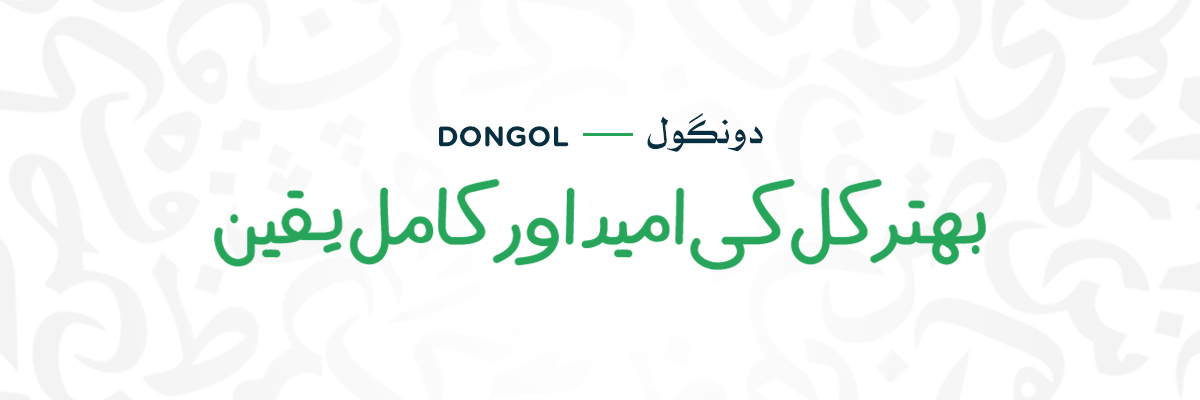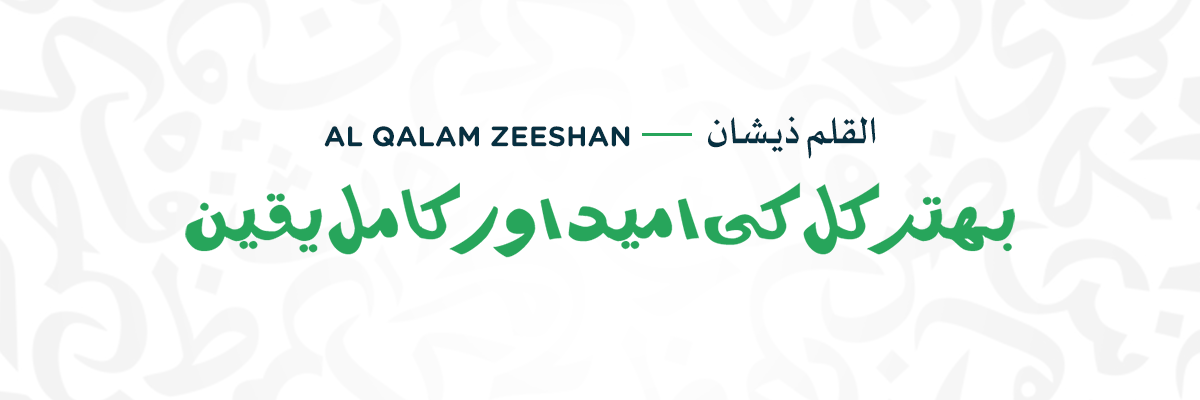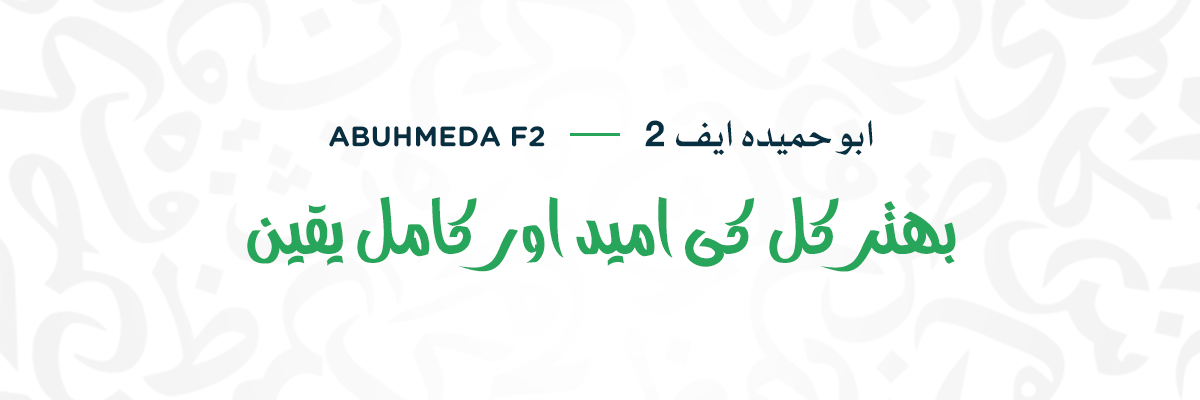
With the rise in technology and innovation day by day, people prefer to make engaging videos to convey the message to their target audience rather than just writing it in their blog posts or articles. There are many types of videos like educational, tech, animated, informational, and the list goes on. To attract the attention of viewers to keep watching the video, you need to consider few things while creating them. First, obviously the visuals matter the most. However, another thing that engage the viewers with your videos is the Urdu Fonts you will use to convey your message. Remember, choose those Urdu fonts for videos that goes best with the overall tone and vibe of your content. Below, we will discuss some of the best Urdu Fonts that you can for writing titles or captions according to your video category. Also, you can learn more about how you can leverage Urdu Fonts in Mainstream Culture.
Everybody wants their videos to get viral, right? However, to captivate more people to watch your video, selection of Urdu fonts for titles as well as captions plays a significant role. Mostly, bold Urdu fonts taken from different categories are used to write titles. While, for captions, thin as well as modern Urdu fonts are the ideal selection. Have a look into these Urdu fonts given below to get a better insight:
| Sr. | Name | Purpose | Font Appearance |
|---|---|---|---|
| 1 | ae Sharjah | For tech related videos | Geometric, monospaced, wide letterforms |
| 2 | All Genders v4 | Headings and titles | Slanted corners, continuous thickness, solid strokes |
| 3 | Adwa Assalaf | Educational or tutorials | Slanted edges, rounded corners, Qalam writing effect |
| 4 | Al Jareeda Title | Informational videos | Wide appearance, thin sharp edges, continuous thickness, solid strokes |
| 5 | A Soraya | Short texts | Slanted edges, changing thickness, solid strokes |
| 6 | Aisha Arabic | Creative videos | Versatile, four different weights, changing thickness |
| 7 | Ad Rsail | Facts based videos | Wide letterforms, solid baseline, compatibility across languages |
| 8 | Dongol | Entertainment or kids-related videos | Decorative handwritten, lightweight and uneven letters |
| 9 | Al Qalam Zeeshan | Short texts | Freestyle handwritten, filled and bold characters, changing and thick strokes |
| 10 | Abuhmeda f2 | Cartoon-style font for children | Filled and curved letters, fun-type appearance |
| 11 | Abdo Misr | Entertainment videos | Wide and bold letterforms, even letter spacing, clear horizontal emphasis |
| 12 | Sarem Hisbullah | Fun, engaging videos | Filled characters, straight baseline, curly long end points, high-contrast strokes |
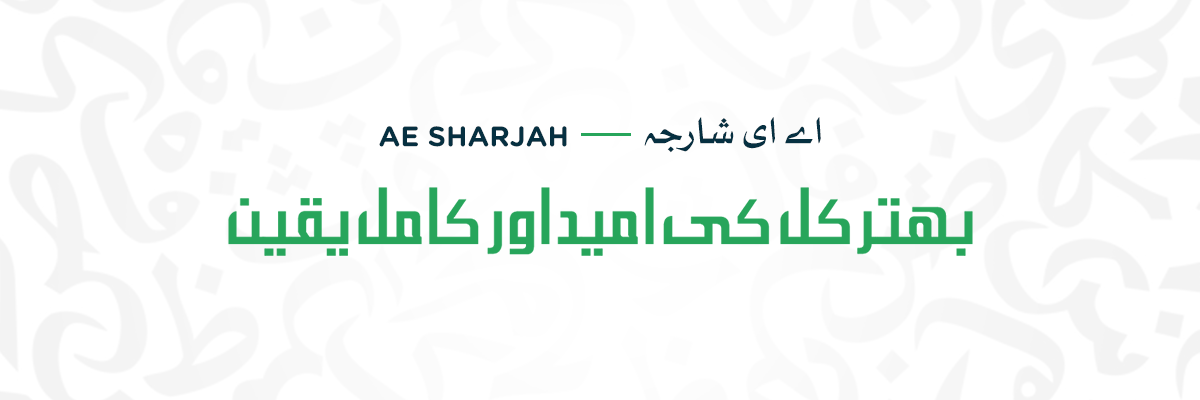
An Arabic font, ae Sharjah was designed by Fazlur Rahman Quraishi. Having a geometric appearance, it was launched in 2017 by Arabeyes. The font has properly-aligned letters with a balanced look, making it a modern tech font. With rounded zero spaces, the font has monospaced letters. It is highly readable because of its wide and bold letterforms, making it appropriate for writing title in your music videos.
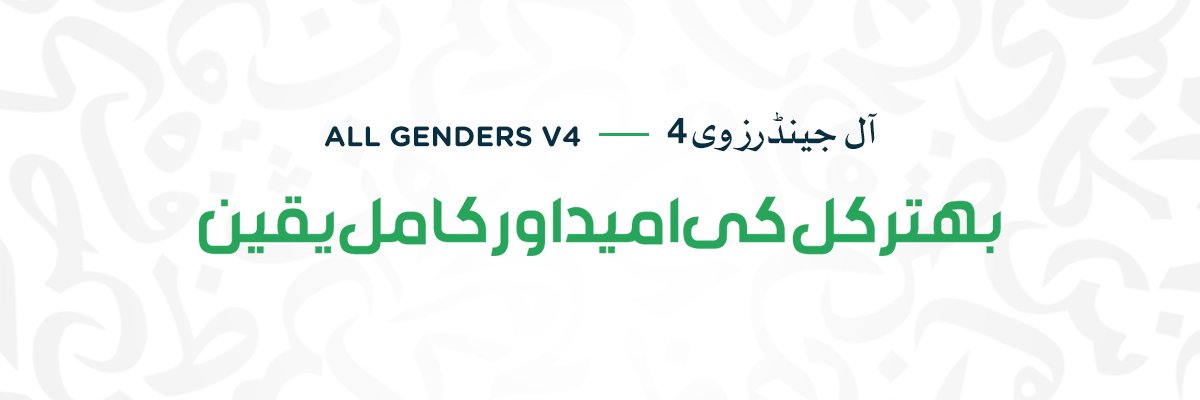
All Genders v4 is inspired by Naskh calligraphy and designer of this font is Rassam Alawdi. With horizontal emphasis, it has slanted corners, capturing classic Arabic script. Due to its continuous thickness and solid strokes, it will leave a long-lasting impact on your viewers. The font also has blunt corners and presents a very delicate outlook while maintaining its legibility. It also has equal spacing between its letters, making it right font for writing headings & titles.
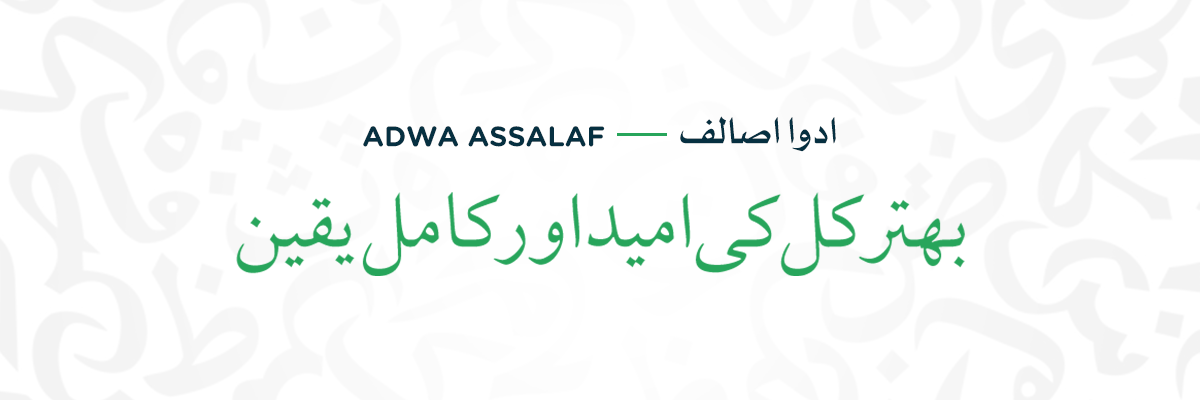
A regular Arabic font, Adwa Assalaf was launched on 26th May, 2021, and designed by Heidelberger Druckmaschinen AG. With 300 characters and a glyph count of 323, the font has a medium and lightweight width. It can support different languages Latin, Arabic, and symbol languages. It is available in 2 styles: Adwa Assalaf Regular and Adwa Assalaf Bold. The font is a perfect option to use in educational or tutorials videos. With slanted edges and rounded corners, it gives a Qalam writing effect. If you like this font also check our collection of Sleek Urdu Fonts, to add fragility to your designs.
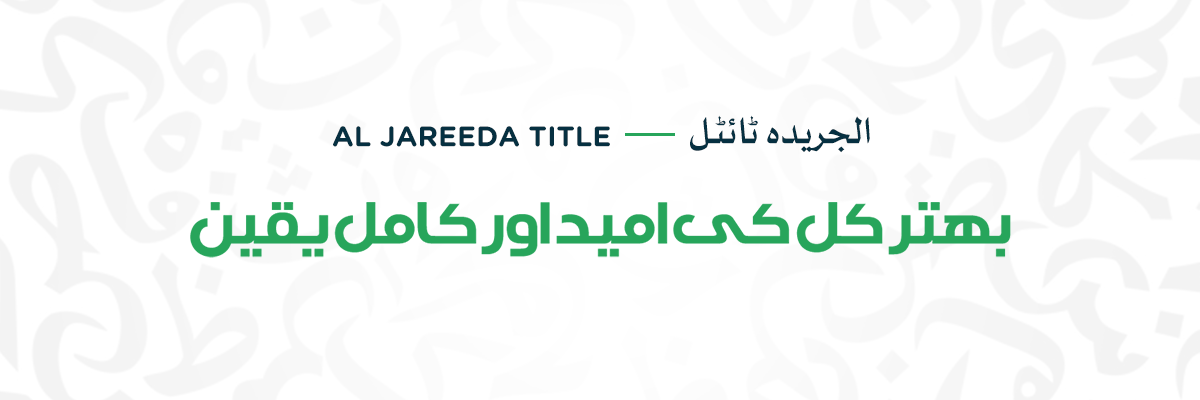
Inspired by Naskh calligraphy, Al Jareeda Title is a modern Bold Fonts. It has 791 glyphs and 871 characters and can support Latin, Greek, Arabic, and Urdu languages. The font also features a wide appearance with thin sharp edges, continuous thickness, and solid strokes. Its rounded corners with thin, pointy terminals add a calligraphic touch in your videos. Despite being complex, it maintains high readability because of its plain and wide letterforms.
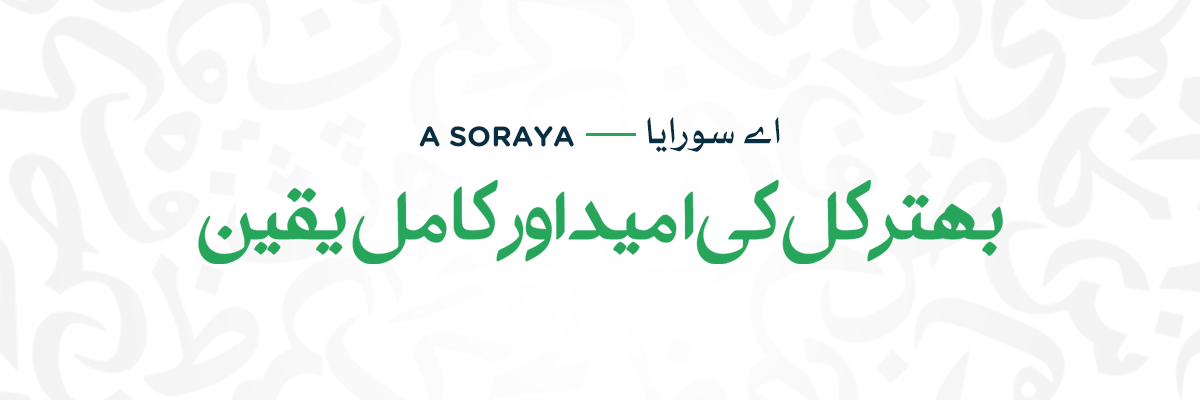
A Soraya was launched on 9th April, 2016 and is a bold Qalam writing font. With 288 characters and 217 glyphs, it has slanted edges. The changing thickness of the font adds a modern touch to its overall look, while the solid strokes provide a strong outlook to your text. In spite of being available in only one weight, the monospaced letters guarantee legibility across different digital platforms, allowing you to read even at smaller resolutions.
Aisha Arabic was designed by Titus Nemeth, Rossetta Fonts and belongs to a versatile font family. It can support Arabic, Greek, and Latin languages, with character set of 640 and 1068 glyphs. The font can be used to add a creativity element in your videos while maintaining its legibility. It is available in four different weights and each one of them provides a unique personality, allowing videos creators to express a lot of messages and emotions. The font also has changing thickness throughout its letterforms.